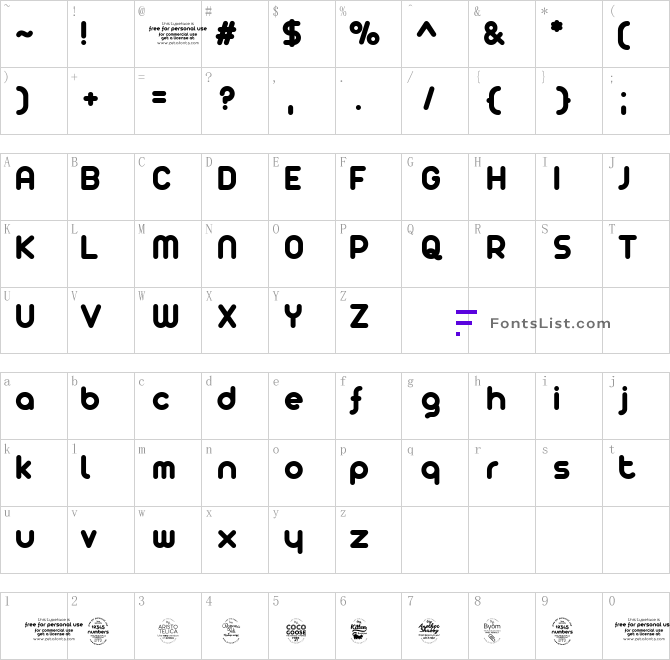
- Font Name:Arista 2.0
Arista-20-copy-2-.ttf is a very beautiful artistic font, Arista-20-copy-2-.ttf is widely used in the design and printing of various books and pictures,Arista-20-copy-2-.ttf has a strong visual impact,Arista-20-copy-2-.ttf is a commonly used font in newspapers, magazines and books, and is used in posters, e-commerce Poster design, store design, logo design, font design and other fields.Arista-20-copy-2-.